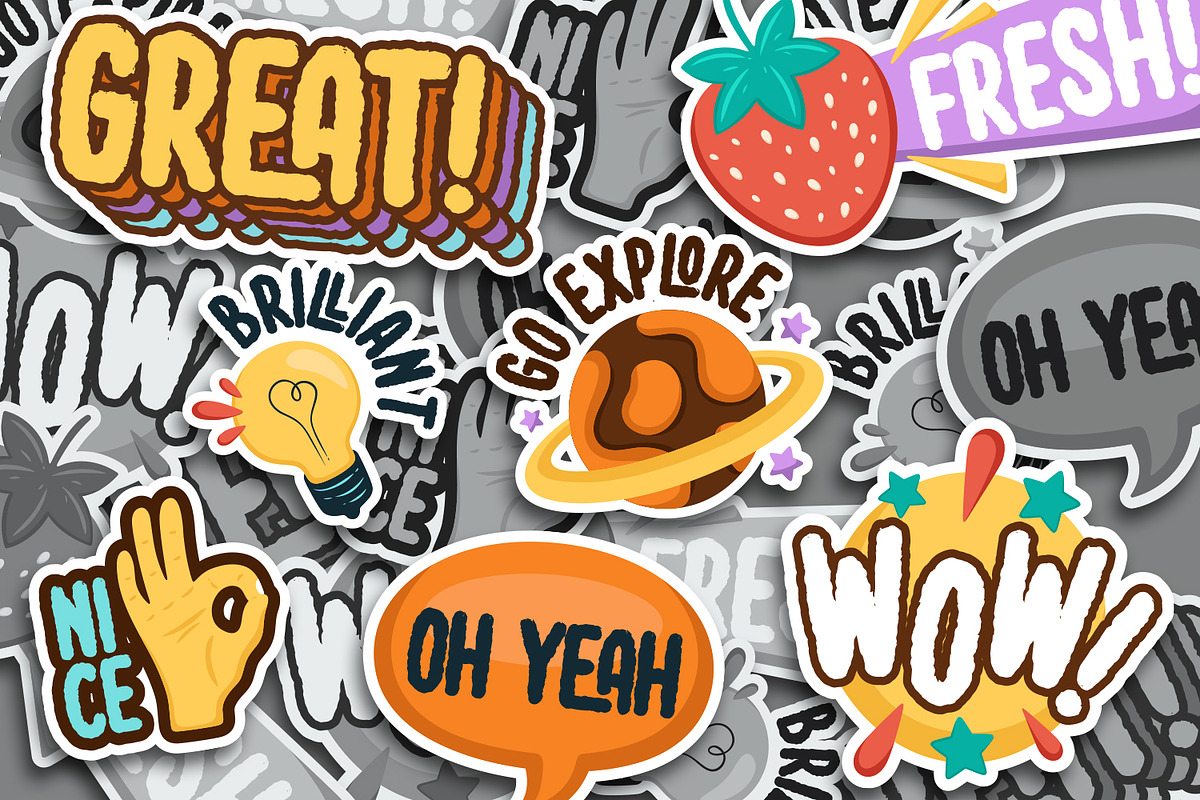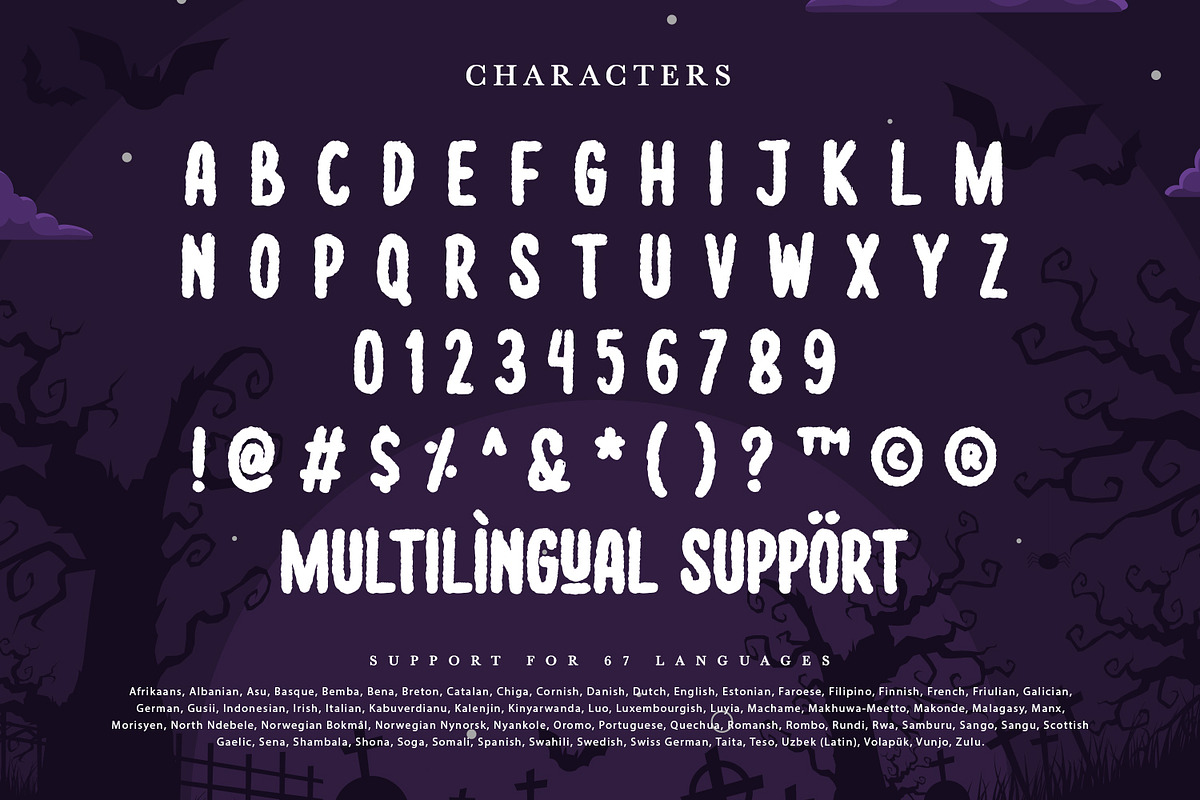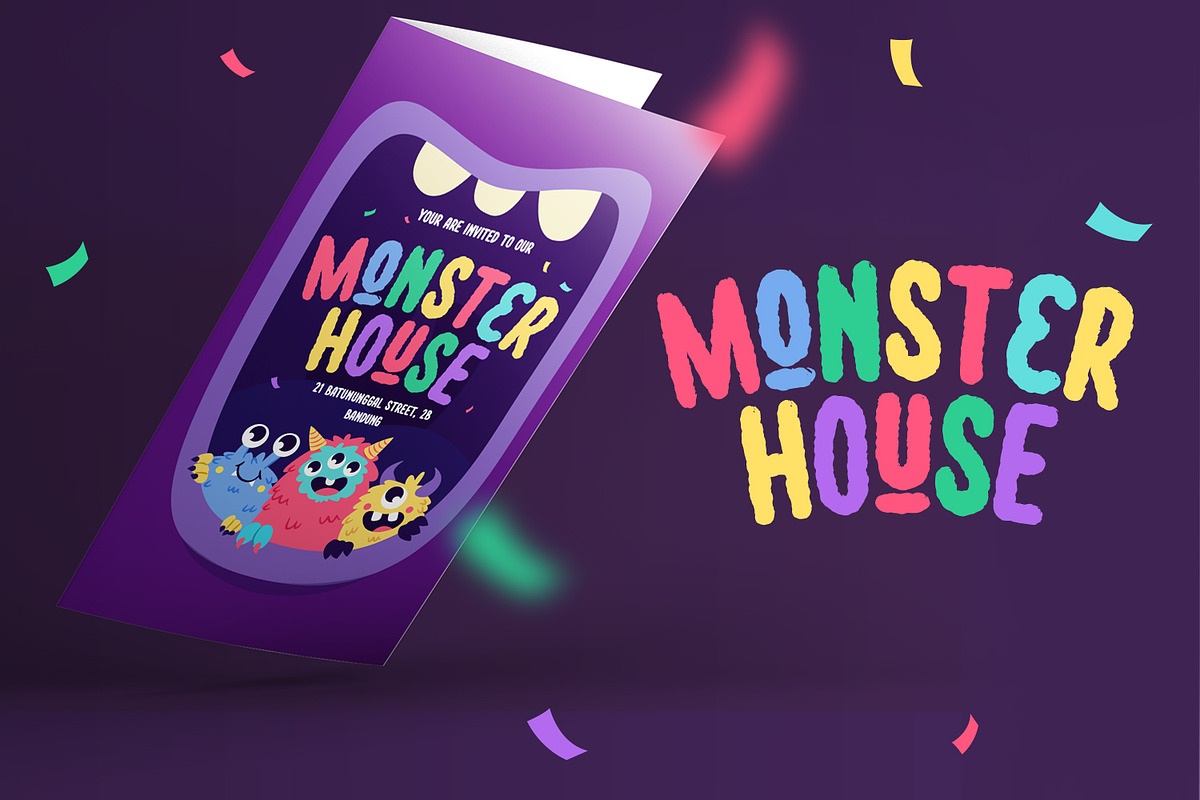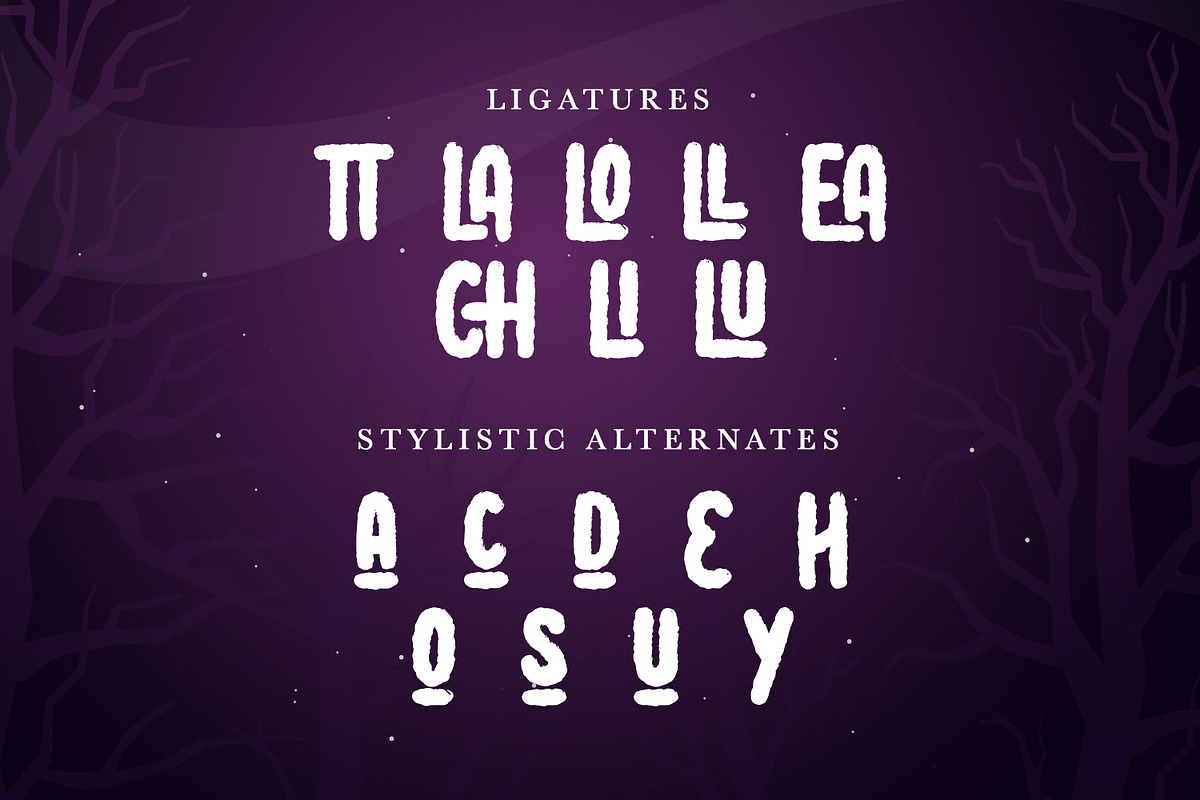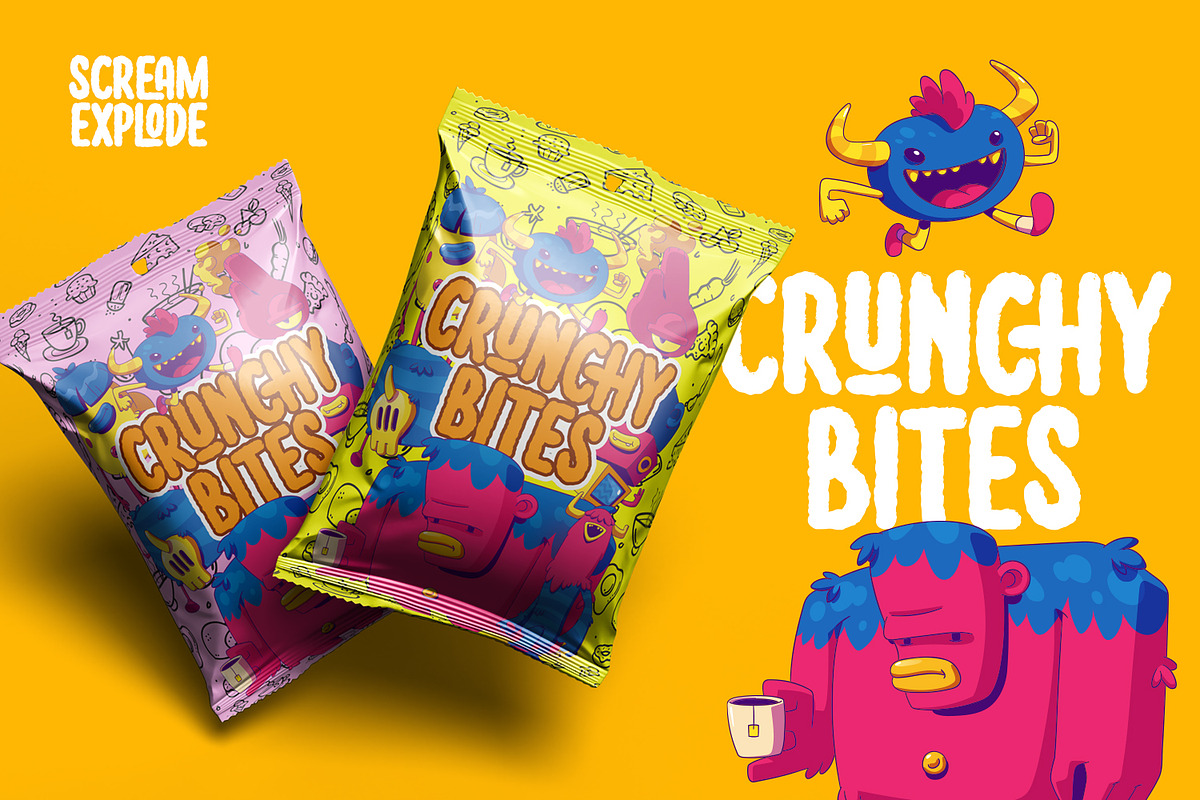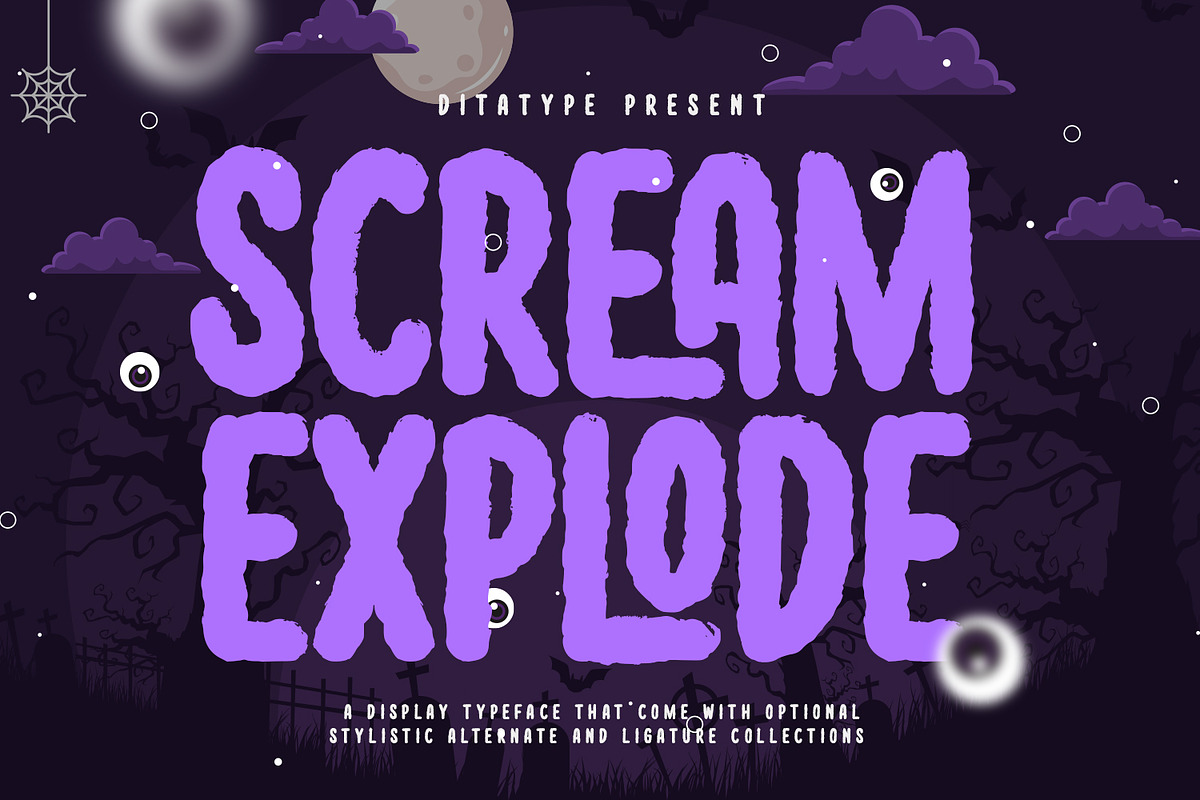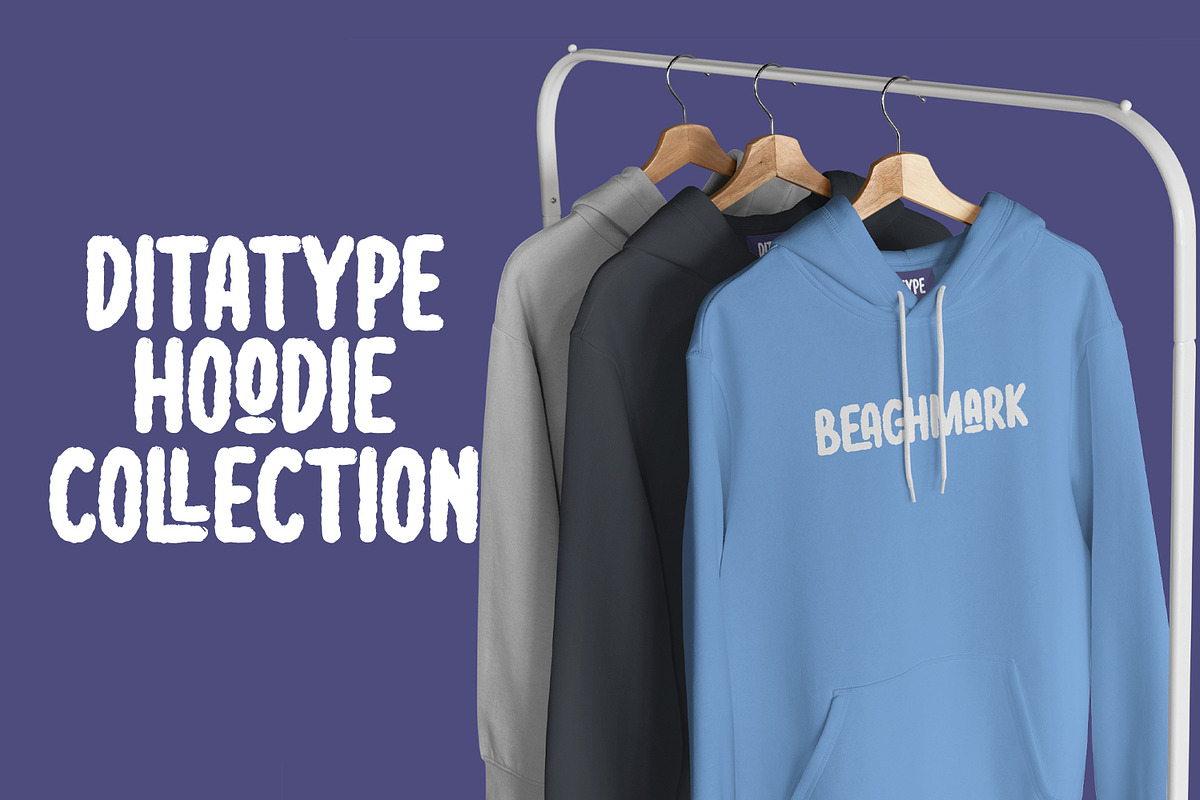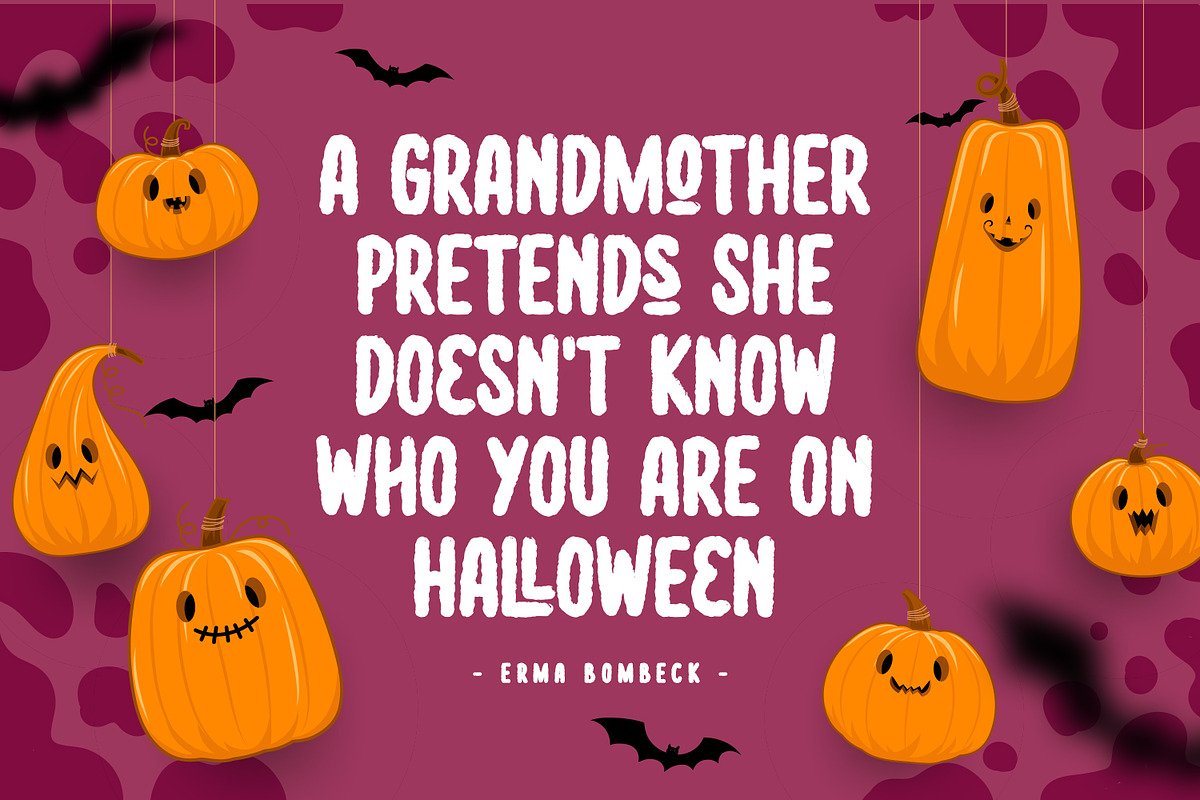
Scream Explode
It is crucial to pick a perfect font for your project designs as they should be as great as your fonts to help you deliver your messages and feelings accurately. We would like to introduce you to our display font to help you create dazzling, unique designs. This is the Scream Explode. It is designed in firm characters and unique styles to help you deliver your messages quickly. This capitalized, thick weight font creates a bold, prominent display. Moreover, the uneven edge lines on our display font will give extra creativity touches to show a unique, attractive display. In addition, you can apply this font for big text sizes to be legible and you can enjoy the available features here as well.)
Scream Explode fits best for various design projects, such as brandings, posters, banners, headings, magazine covers, quotes, printed products, merchandise, social media, etc. Find out more ways to use this font by taking a look at the font preview.